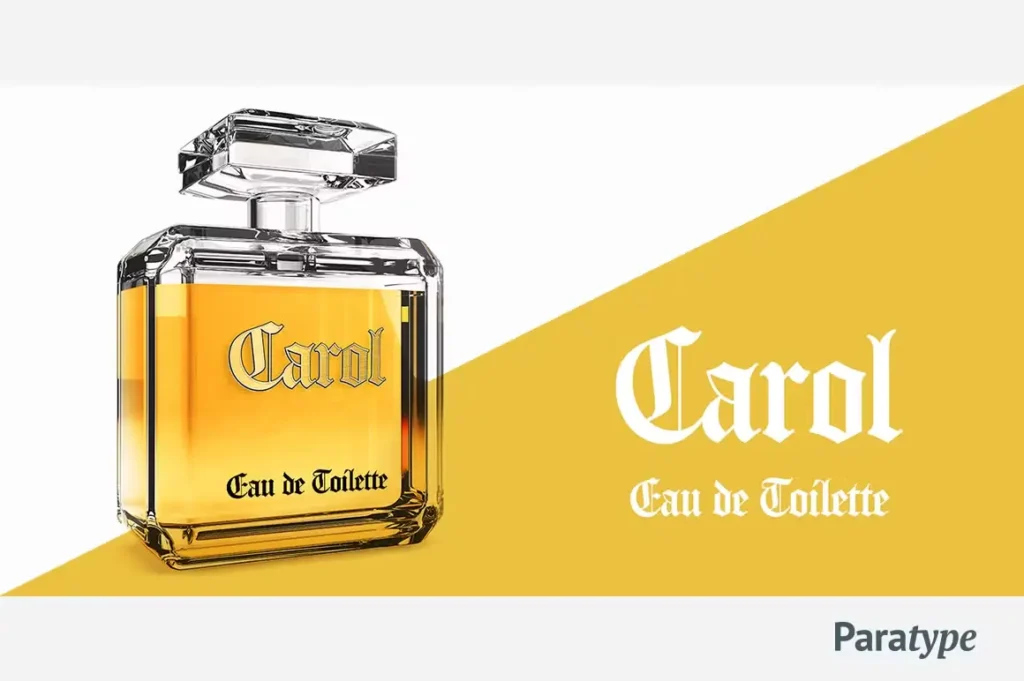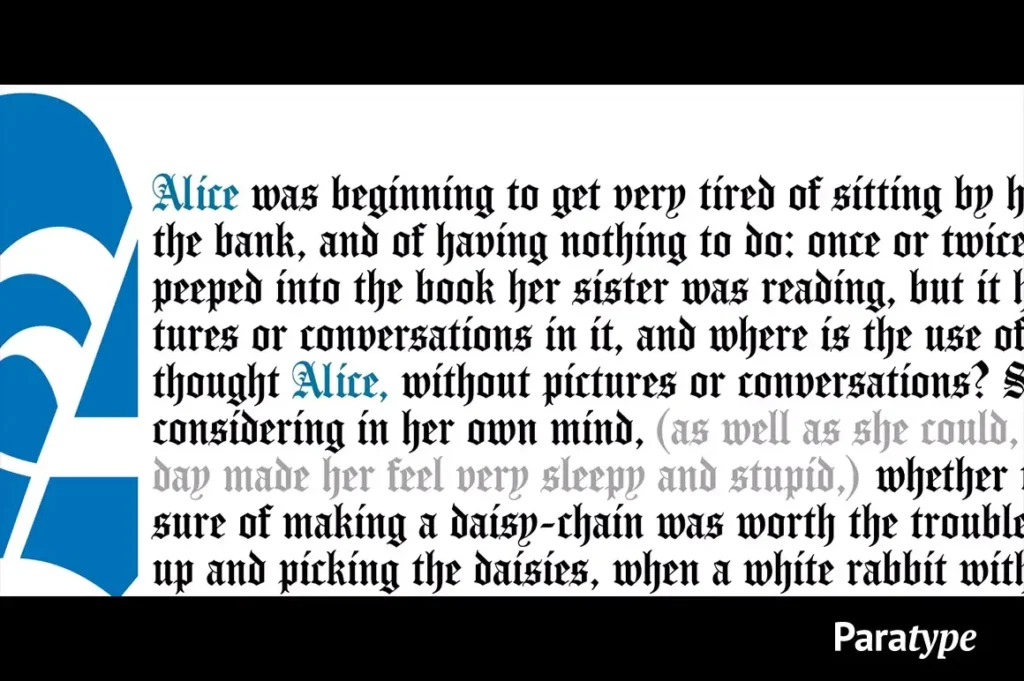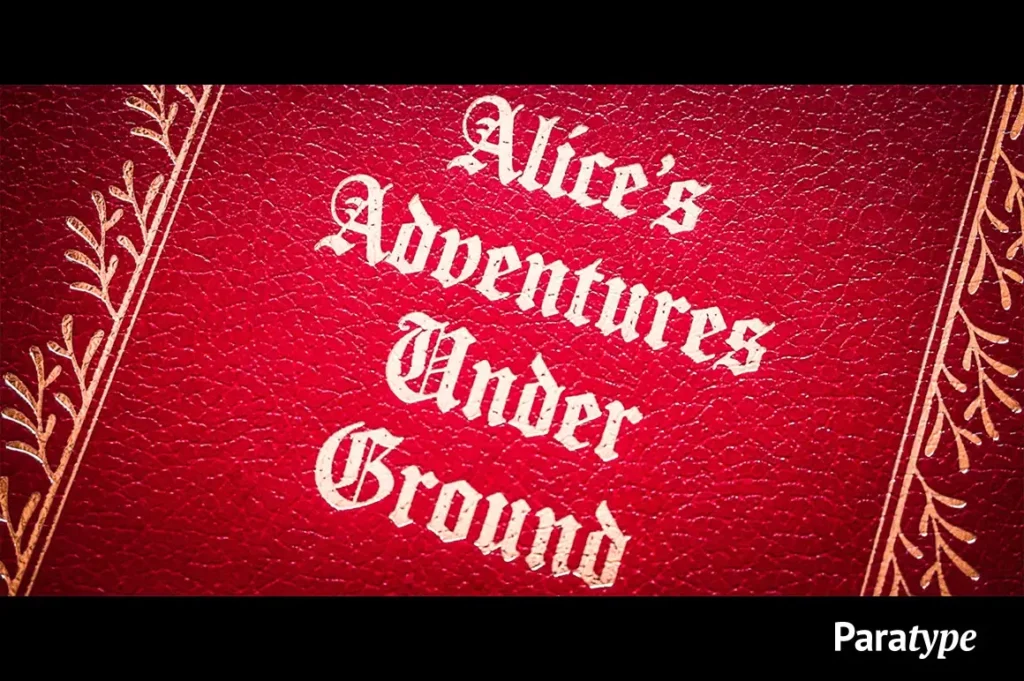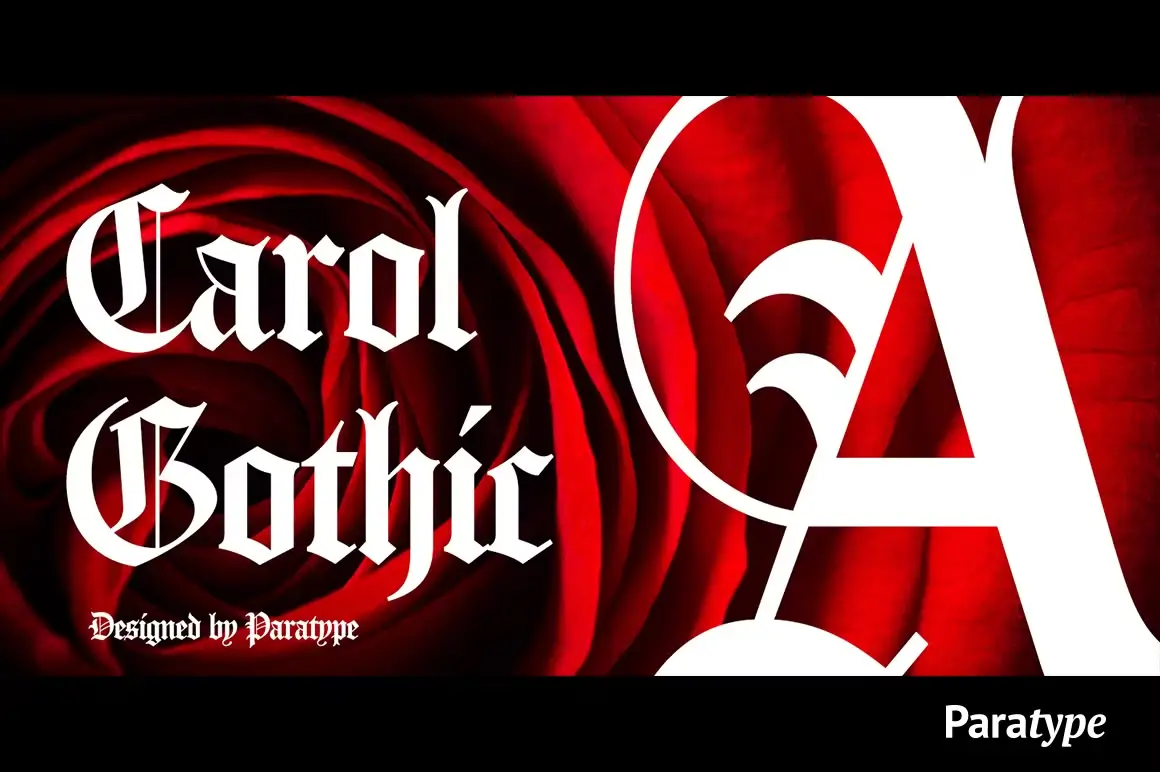
About Carol Gothic Font
I’m a typographer and graphic designer, and fonts are a huge part of my everyday creative work. Recently, while digging through my font library for a branding project, I came across Carol Gothic Font. It immediately stood out. The bold strokes, the sharp detail, it had exactly the kind of presence I was looking for.
I used it in a logo for a Victorian-themed café. The result? Powerful. It gave the brand a historic charm without feeling too dated. That’s when I realized this font deserved a proper review. Fonts like this aren’t just type. They carry emotion, style, and meaning. And Carol Gothic carries a lot of that.
About the Font and the Designers
Carol Gothic is a traditional blackletter face closest to Linotype’s Old English. Fonts in this gothic style were widely used in 19th-century English typography. The designers, Alexandra Korolkova and Alexander Lubovenko, created this typeface under the ParaType foundry in 2015.
Alexandra Korolkova is a well-known font designer with a sharp eye for classical elegance. Alexander Lubovenko brings technical precision to the style. Together, they balanced old-world texture with modern clarity. You can see that in every letter.
The font is part of the ParaType commercial library. It blends historical blackletter features with a readable structure. That makes it versatile for web, print, and digital design. Though it looks ancient, it’s engineered for modern use.
Carol Gothic fits perfectly into layouts that need a vintage or dramatic look. It reflects styles that were used quite frequently in the 19th century. Still, it remains very usable today. It’s not a common font, which makes it even more special in projects where you want something custom or expressive.
Features of the Carol Gothic Font
Carol Gothic is a traditional blackletter face closest to Linotype’s Old English. This style is sharp, tall, and rich in detail. The font’s structure is dense but not overcrowded. Each letter has weight and authority. It works well in both display and decorative settings.
The Carol Gothic font family includes a regular style that mimics early gothic types but refines the edges for cleaner use. It’s great for logos, headers, titles, and even posters. The spacing feels intentional. The rhythm of the strokes gives it a clear pattern without being overwhelming.
This font is perfect for designers who love historical styles but need them to work in modern branding or digital media. It’s a typeface that stands out, not just because of looks but because of how carefully it was designed. It’s gothic, dramatic, and totally unique.
If your design calls for something bold, historic, or expressive, Carol Gothic is a great choice. I’ve used it in branding, but it can easily fit into album covers, packaging, book titles, posters, and digital banners.
Because Carol Gothic is a traditional blackletter font, it naturally works well in designs that need a touch of the old English style. Think of medieval, Victorian, or gothic-themed projects. It’s also suitable for custom invites, themed event posters, or decorative web headers.
While this font isn’t for long paragraphs or body text, it shines when used for short, impactful words. Want your logo to look like it came from a vintage sign? This is the face for it. Want your project to stand apart from widely used fonts? Same answer.
Designers who need something similar to Carol Gothic often end up using free gothic fonts. But they rarely offer the balance and quality that this typeface has. It’s built to impress. The detail shows when used at larger sizes.
Whether for digital or print, Carol Gothic fits perfectly into layouts that demand character and history.